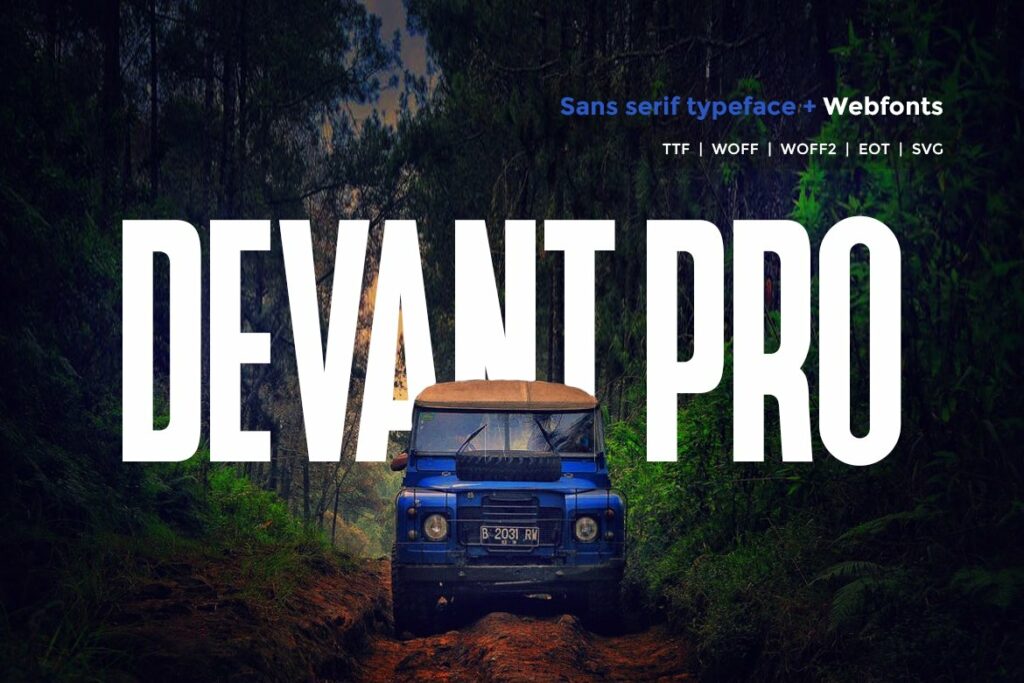
Devant pro Font
Devant pro Font Webfont is a modern Sans-Serif clean typeface and very much suitable for Film Posters, headlines, Block letters, Subheading, Logo Designs, Big Banners. Because of its elegant classic look, it is also perfect for creating outstanding logos, promotional content, and marketing graphics. Devant pro can really grab attention from your visitors by its unique design every time you use it!
Devant pro Sans Serif Font